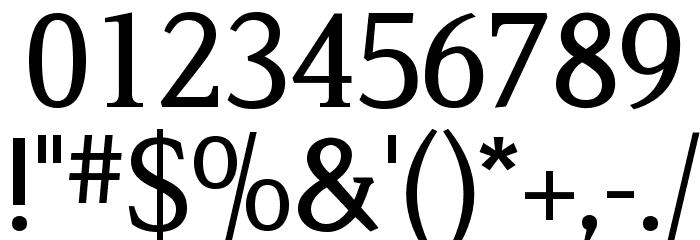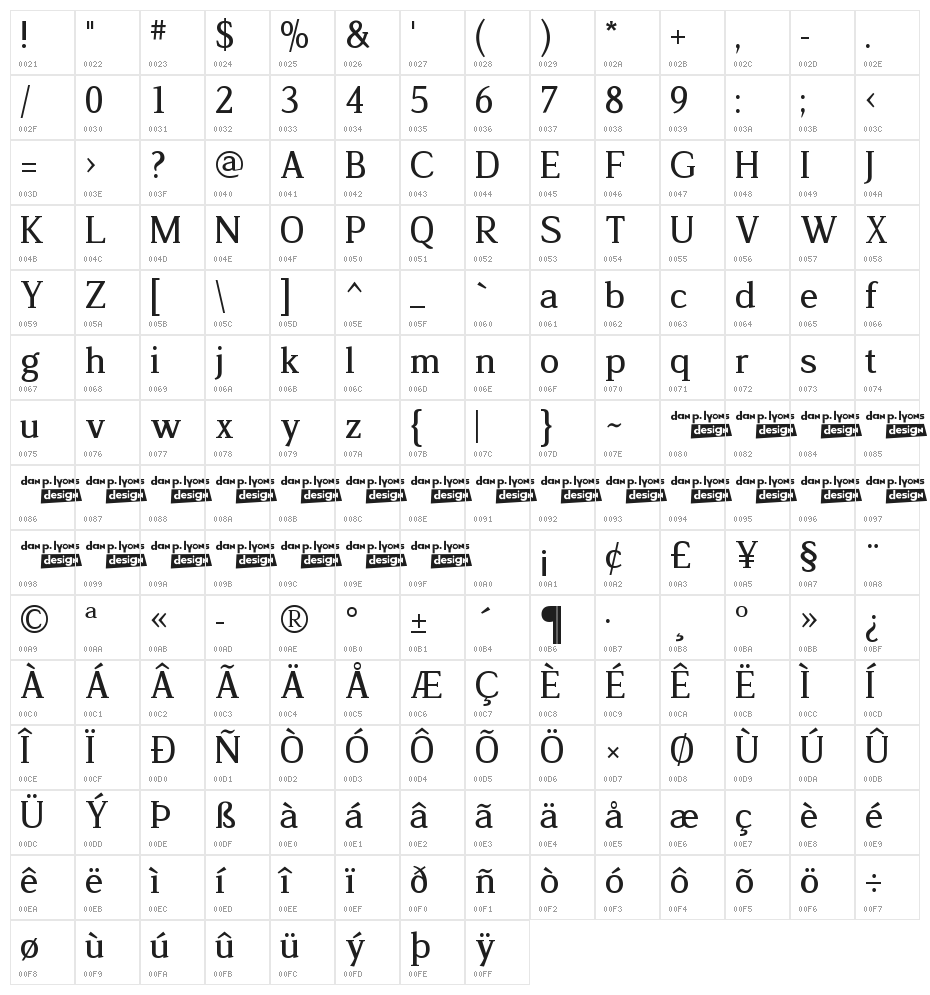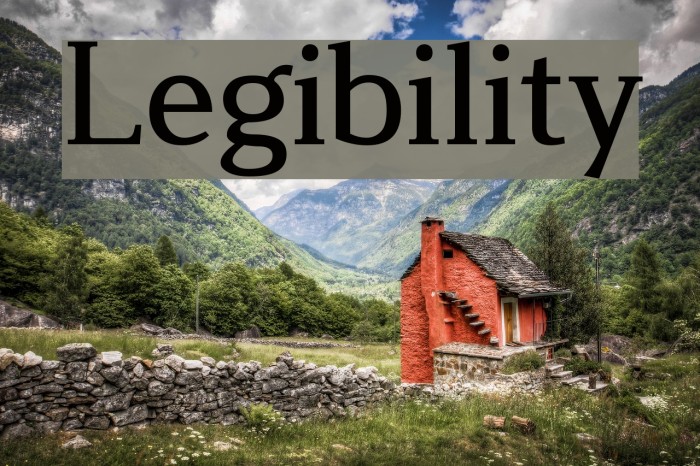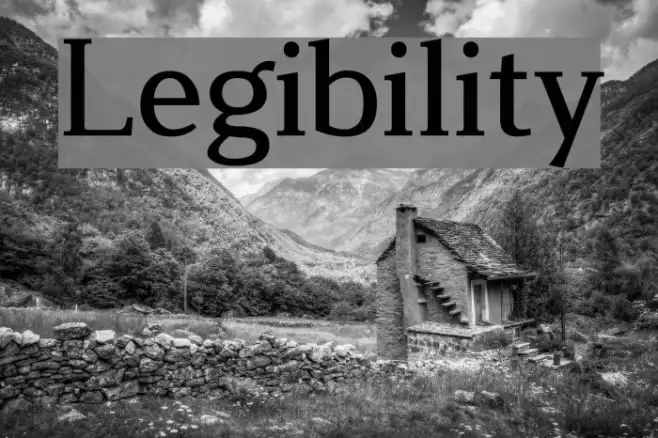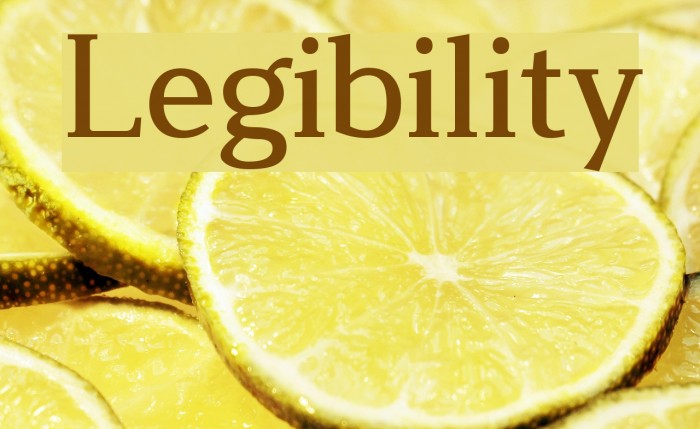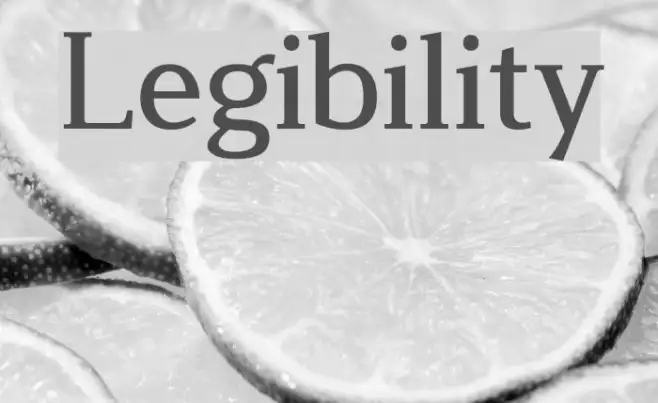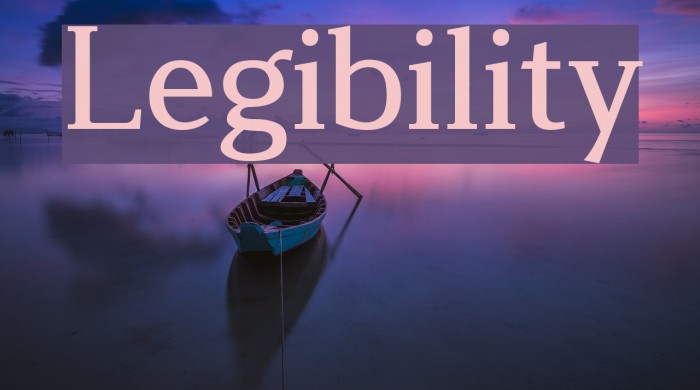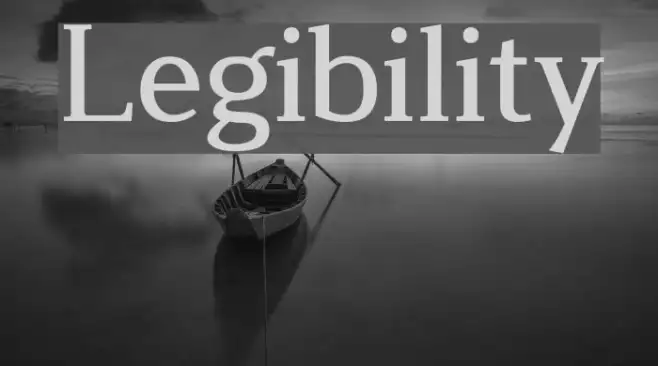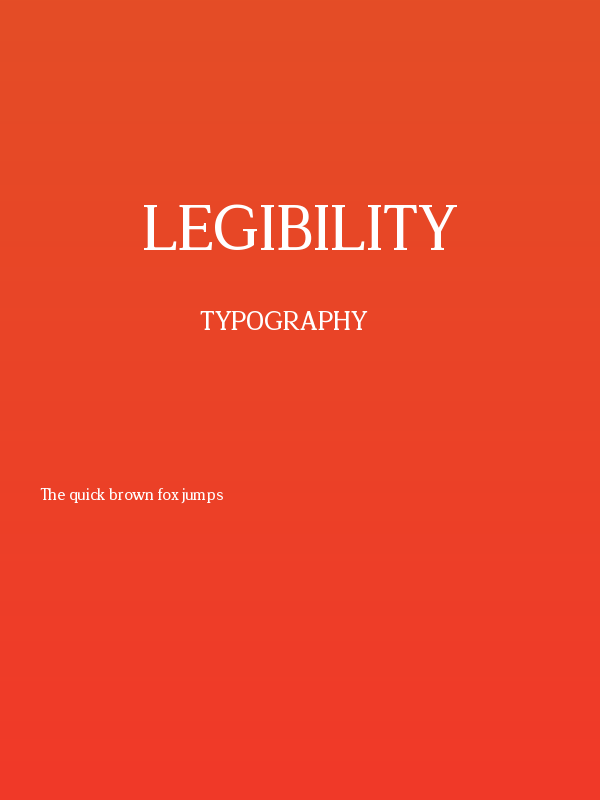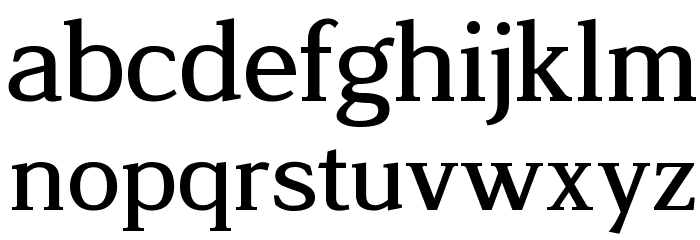
Legibility Font
Legibility Description
This font features a classic serif design with a strong emphasis on readability and elegance. The uppercase letters are bold and well-defined, providing a sense of authority and tradition. The lowercase letters maintain a consistent style, with smooth curves and balanced proportions that enhance legibility. The numerals are clear and distinct, making them suitable for both formal and casual settings. Special characters are thoughtfully designed, ensuring they complement the overall aesthetic. This font is versatile, suitable for a variety of applications from print to digital media.
LEGIBILITY UPPERCASE
LEGIBILITY LOWERCASE
LEGIBILITY OTHER CHARS
| Use Case | Body text, Headlines, Editorial design |
| Proposed Projects | Ideal for book typesetting, formal invitations, corporate branding, and editorial design. |